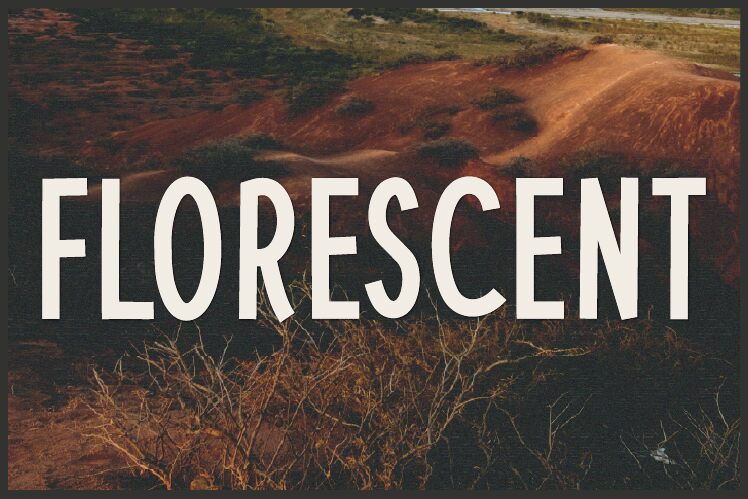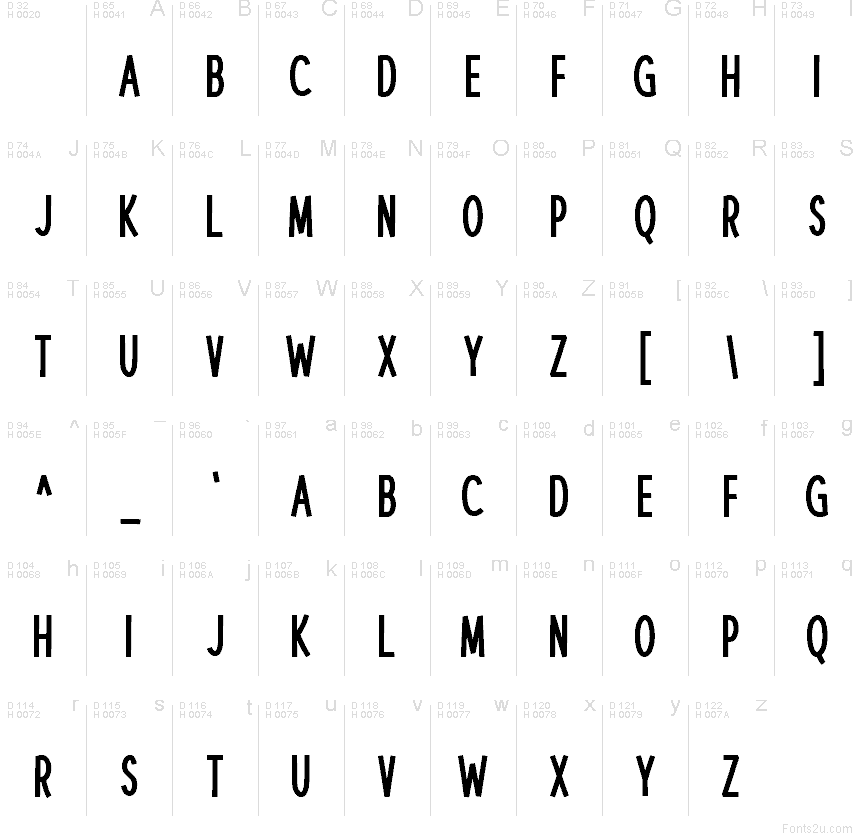
Florescent
Florescent font by HannaBie Creative Studio is a free display typeface that looks like it’s been pulled straight from a gritty gig poster wall. Its tall, ultra-condensed letters feel hand-cut and stretched, with inky black strokes and slightly rough edges that give every word a raw, buzzing energy. The narrow forms let you shout a long headline in tight spaces without losing impact, creating a bold vertical rhythm that instantly grabs attention.
Using Florescent, your layouts gain a tense, electric mood that works beautifully for concert posters, zines, horror or thriller covers, edgy branding, streetwear graphics, and bold social media promos. This free font thrives at large sizes, where the textured edges and skinny proportions really show. Pair it with a clean, neutral sans serif for body copy to let Florescent stay loud while the supporting text stays out of the way.